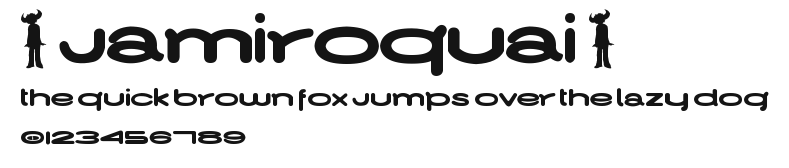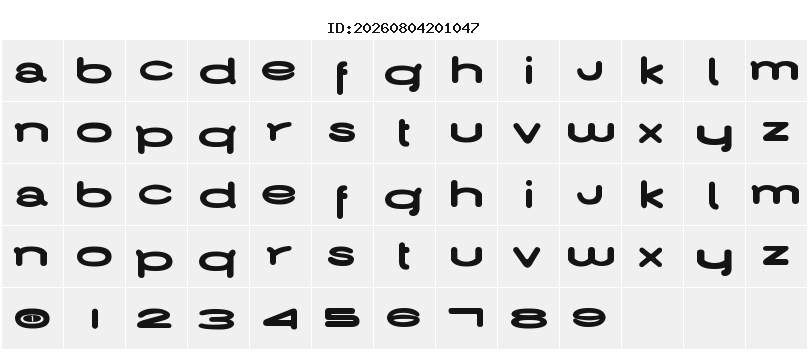
• Font Name: ! Jamiroquai !
• Full Font Name: ! Jamiroquai !
• Designer: High-Logic - Erwin Denissen 1999
• Manufacturer: High-Logic
About ! Jamiroquai !.ttf
! Jamiroquai !.ttf is a modern, elegant sans-serif font designed for ultimate readability and visual harmony. Perfect for branding, headlines, web design, and print materials.